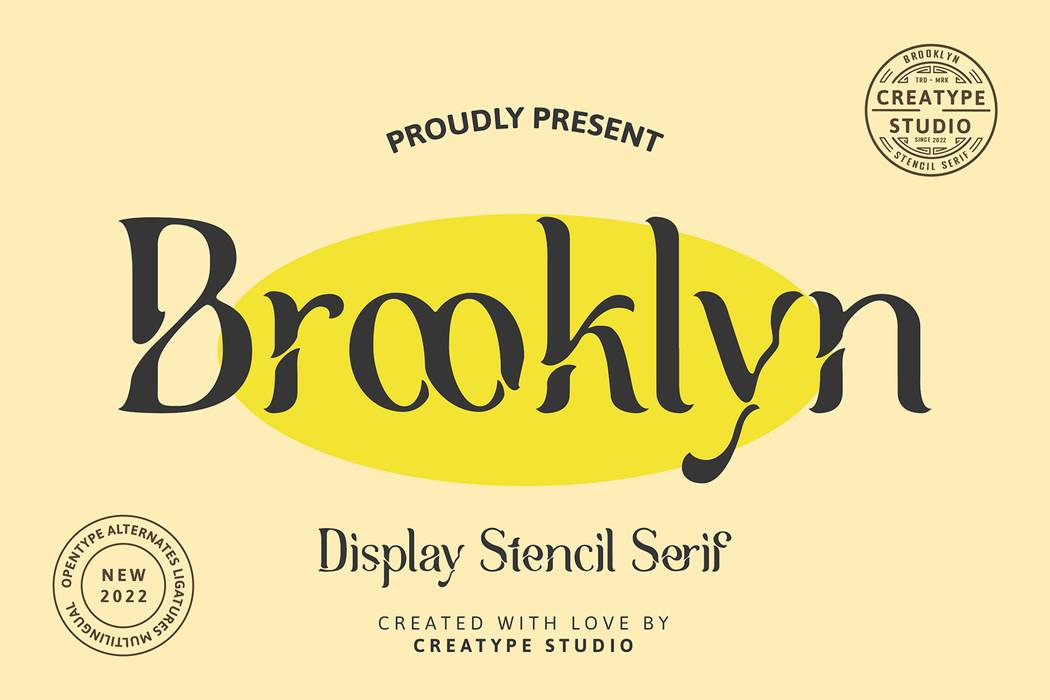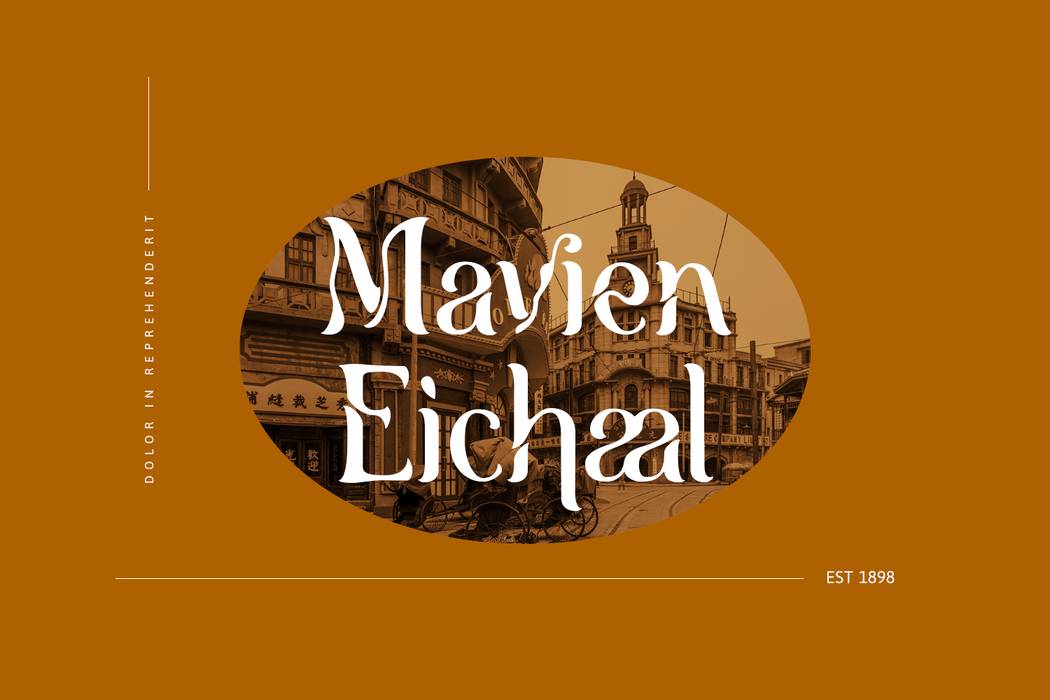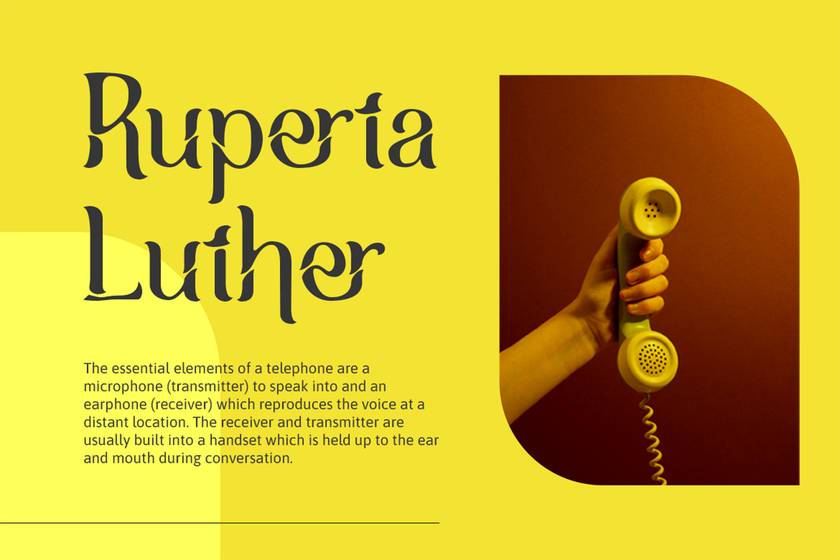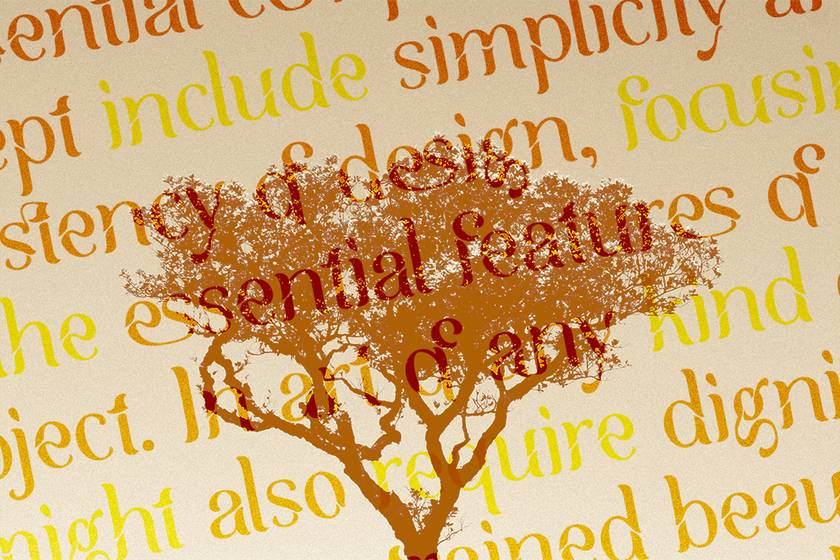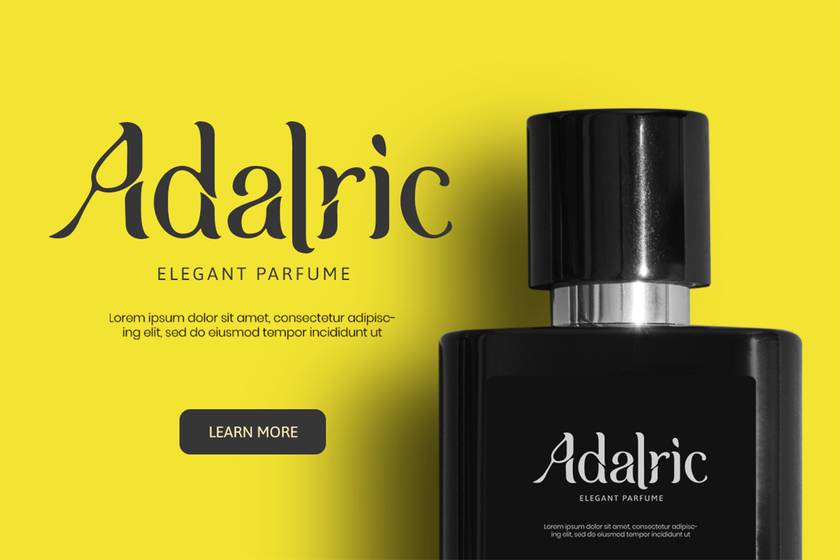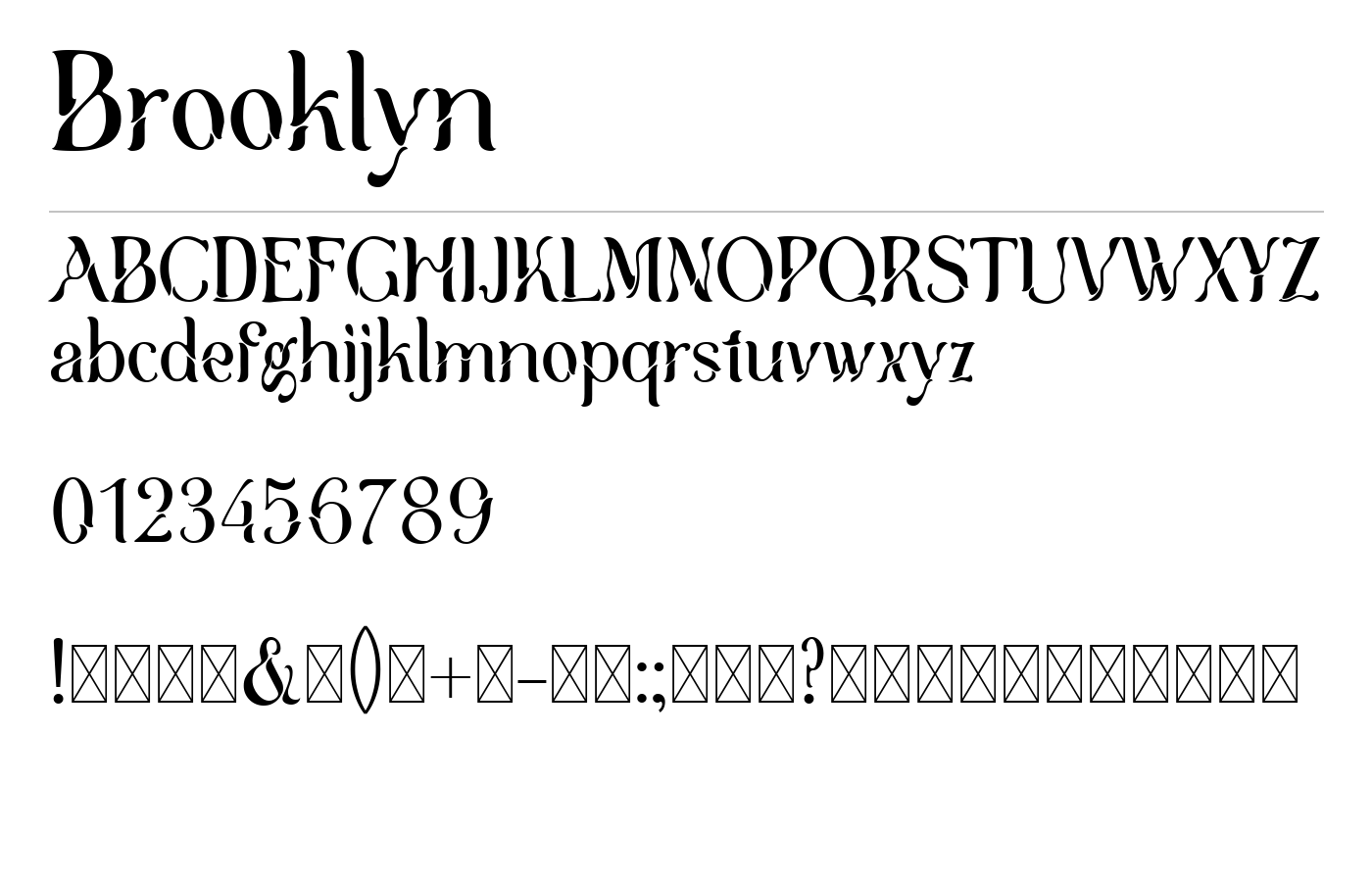
Brooklyn Font is a distinctive serif typeface that blends vintage charm with modern flair through its unique mix of high contrast strokes and whimsical, almost calligraphic letterforms. Its elegant yet slightly quirky personality makes it ideal for creative branding, fashion editorials, and stylish logos where a refined but expressive look is desired. This font works best in headlines and display uses where its artistic details can truly stand out and captivate attention.
Brooklyn Font
About Brooklyn Font
| Font family | Brooklyn Font |